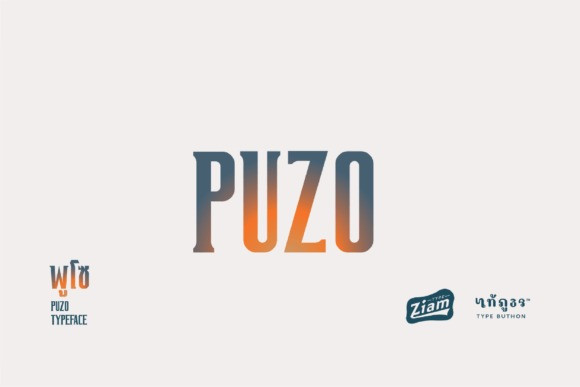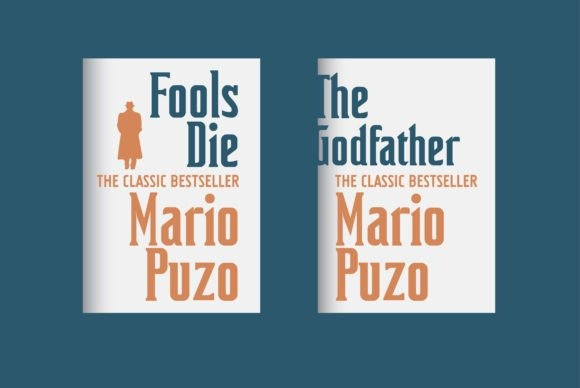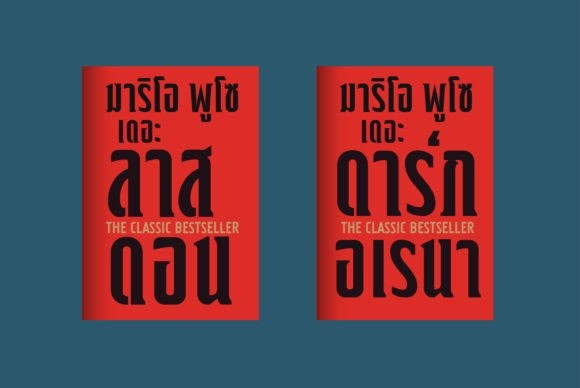
Puzo Font
Puzo is a cool and incredibly stylish display font masterfully designed to become a true favorite. It has beautiful and well-balanced characters and as a result, it matches a wide pool of designs. Add it to your most creative ideas and notice how it makes them come alive!